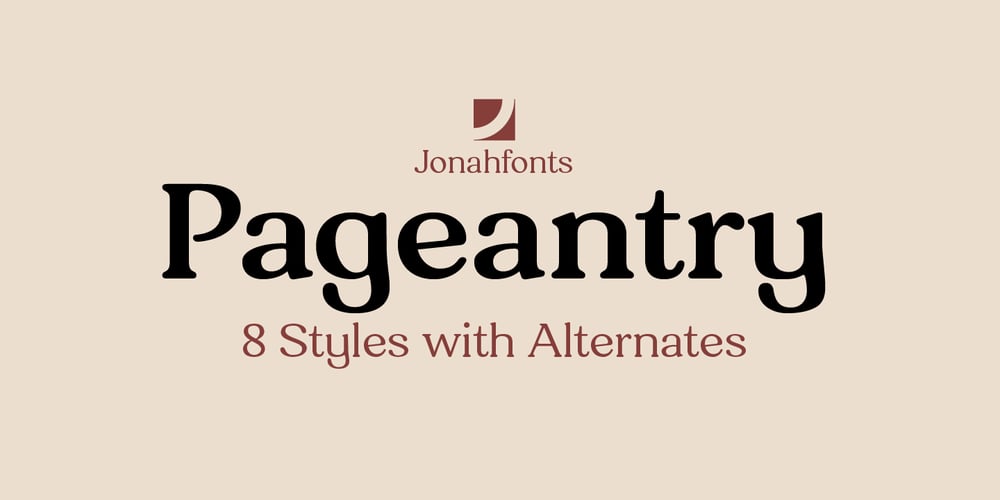
Pageantry
Pageantry font
Pageantry Font Family was designed by John Nahmias and published by Jonahfonts. Pageantry contains 8 styles and family package options. Pageantry is very suitable for Packaging, greeting cards, magazines, posters, and Advertising Ads. Designed in four weights from light to heavy including italics, covering a large range of editorial and advertising applications. Inspired by ‘Souvenir’ a popular font in the 1900s. I designed ‘Pageantry’ with a more rounded appearance, giving it a more softer appearance.